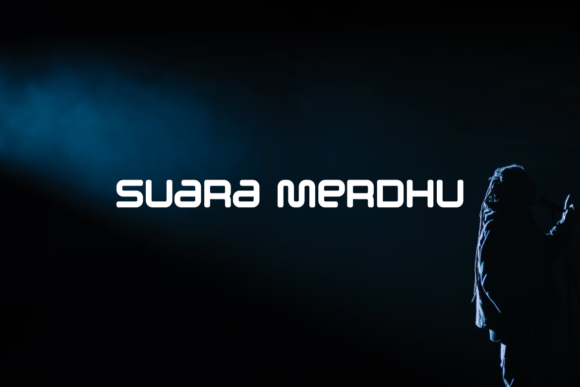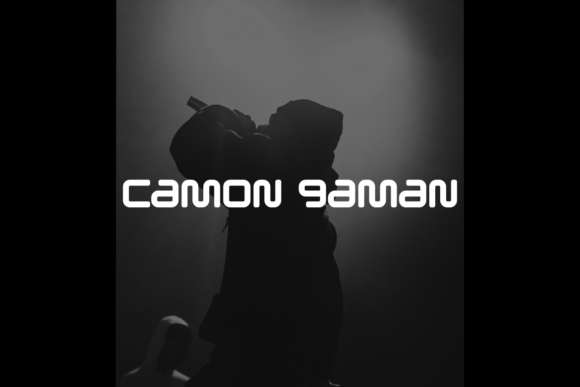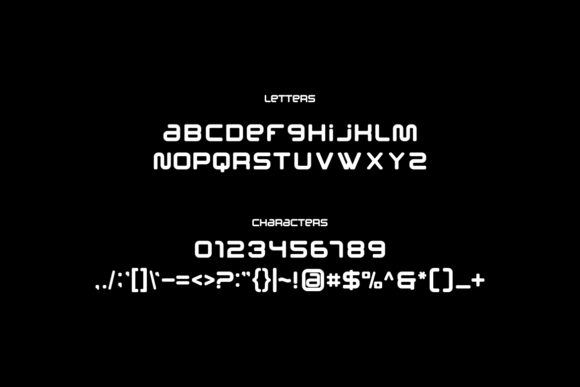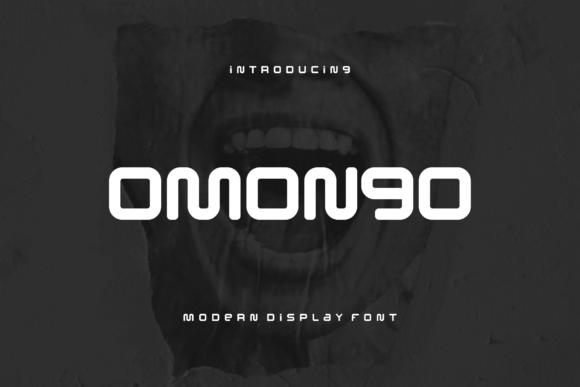
Introduction to Omongo Font
Omongo is a modern display font with bold, clean lines and a simple, stylish look.
It’s perfect for making text stand out in posters, headlines, or logos The design is sleek and easy to read, giving a fresh and professional feel to any project.